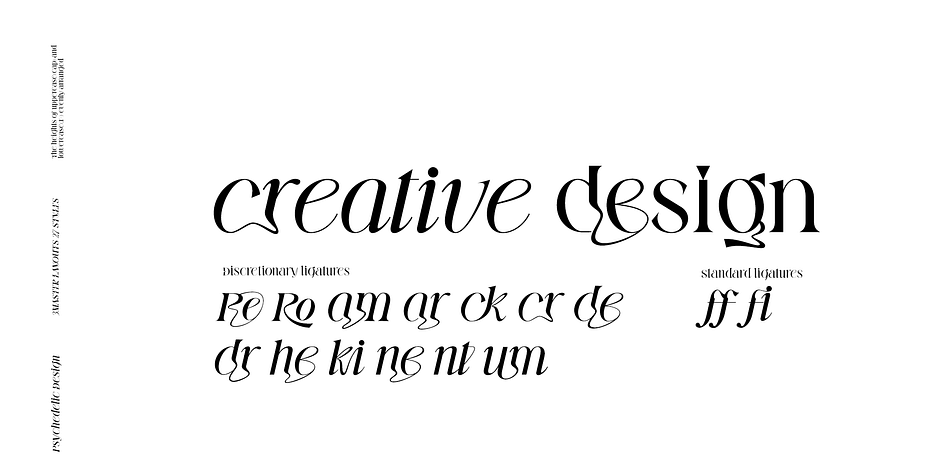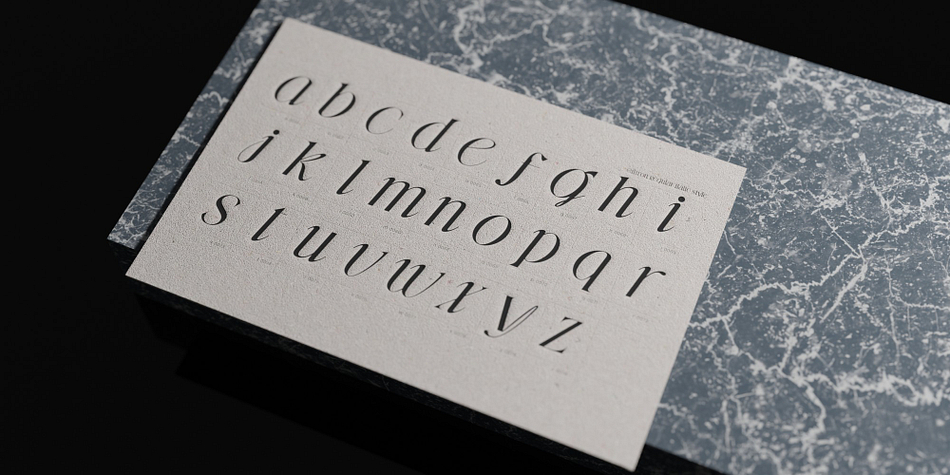
GIBEon
GIBEon is a display font family. This typeface has twenty-seven styles and was published by Brenners Template.
GIBEon Display Serif Family-
Basically, it seeks a psychedelic groove and freedom. For its evolved balances, the heights of uppercase(cap) and lowercase(x-) evenly arranged to eliminate the sense of imbalance.
Glyphs are designed by reflecting their characteristics to preserve individual originality.
The three master styles are complementary to each other, and the It enhances the imagination of designers.
Ligatures and Alternates can also help with more natural layout editing.
And, enjoy the freedom and groove of Italic Instants!